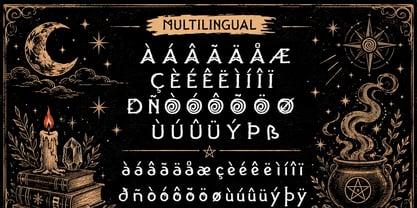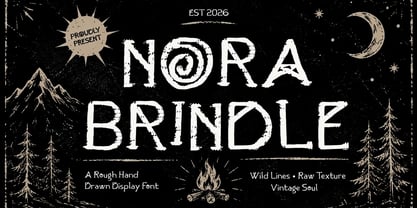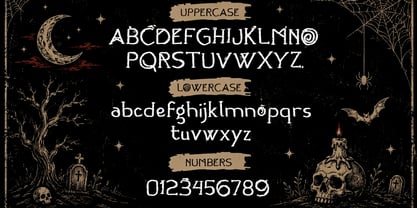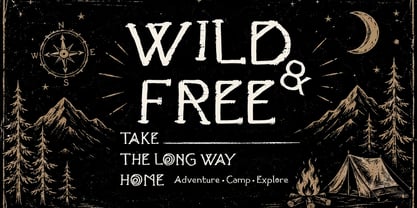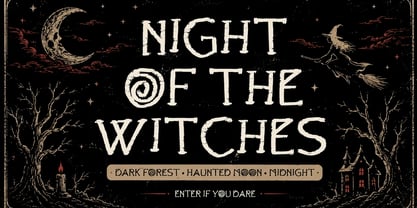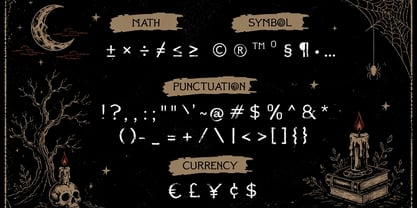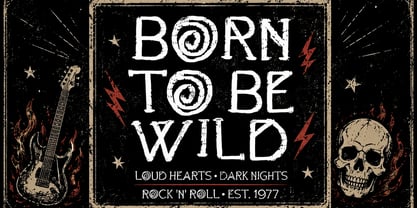
Nora Brindle
Die Schriftfamilie Nora Brindle wurde von Wahyu Eka Prasetya, Mei Suseno entworfen und von Mei Suseno veröffentlicht. Nora Brindle enthält 2 Stile und Familienpaketoptionen. Mehr über diese Familie
Nora Brindle is a bold distressed display font with a rough hand-drawn character, vintage texture, and a distinctive alternative aesthetic. Its imperfect strokes, worn edges, and organic letterforms bring a raw handmade feel to every word.
Perfect for vintage posters, retro branding, apparel, outdoor adventures, camping designs, rock and punk artwork, horror posters, album covers, logos, labels, stickers, and editorial headlines.
Nora Brindle is designed to make a strong visual statement while maintaining an authentic handcrafted appearance. The font includes uppercase, lowercase, numbers, punctuation, symbols, currency characters, and multilingual glyphs, making it versatile for both creative and commercial projects.
Pair the Regular and Slant styles to create dynamic typography with a rugged, rebellious, vintage-inspired personality